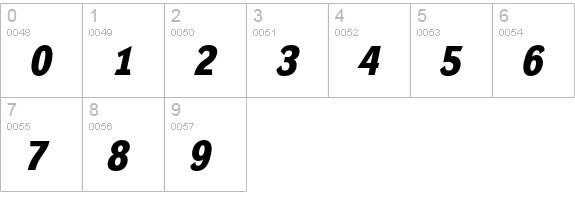
Dynamo Italic B Font Details
Dynamo Italic B is a distinctive, italic variant in the Dynamo typeface family \xE2\x80\x94 well suited to design and typography projects.
Dynamo Italic B is a modern and stylish font with a sleek italic design that exudes sophistication and elegance. Its unique curves and sharp angles make it perfect for adding a touch of flair to any project, whether it's for print or digital media. The font's bold yet graceful appearance commands attention and delivers a strong visual impact. What's even better is that Dynamo Italic B is available for free download at FontsMarket.com, making it easily accessible for all your design needs. Whether you're working on a branding project, website design, or any other creative endeavor, this font is sure to elevate your work to the next level. Don't miss out on this opportunity to enhance your designs with the timeless beauty of Dynamo Italic B.